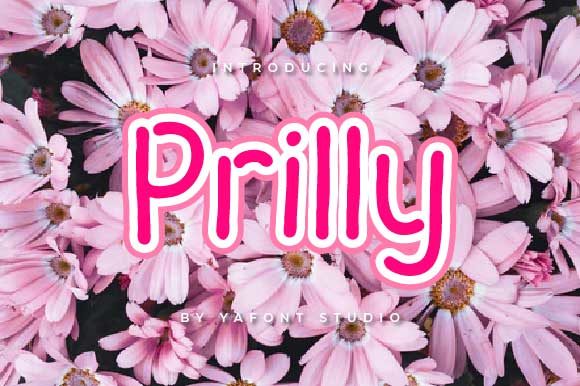
About Prilly Font
Prilly is a sweet and simple handwritten font. Whether you’re using it for crafting, digital designing, presentations or greeting cards making, it’s perfect!